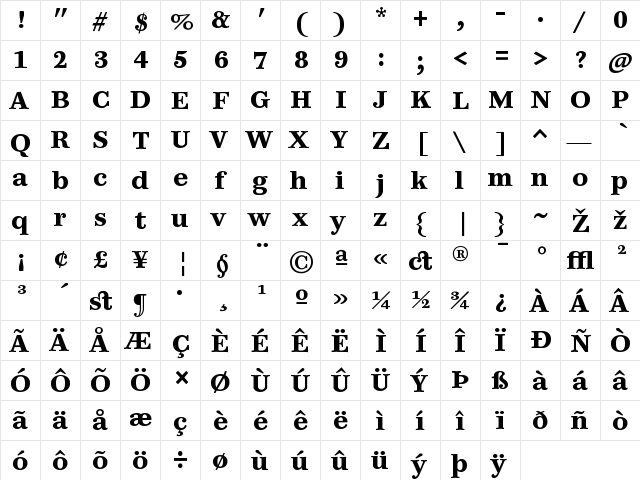
PB6TTP-BoldTF Regular Font Preview
PB6TTP-BoldTF Regular
PB6TTP-BoldTF Regular Font Details
Design Context for PB6TTP-BoldTF Typeface
PB6TTP-BoldTF is a composed and adaptable typeface that performs quietly and consistently across a wide range of design contexts. Its bold stroke weight gives it real presence on the page.